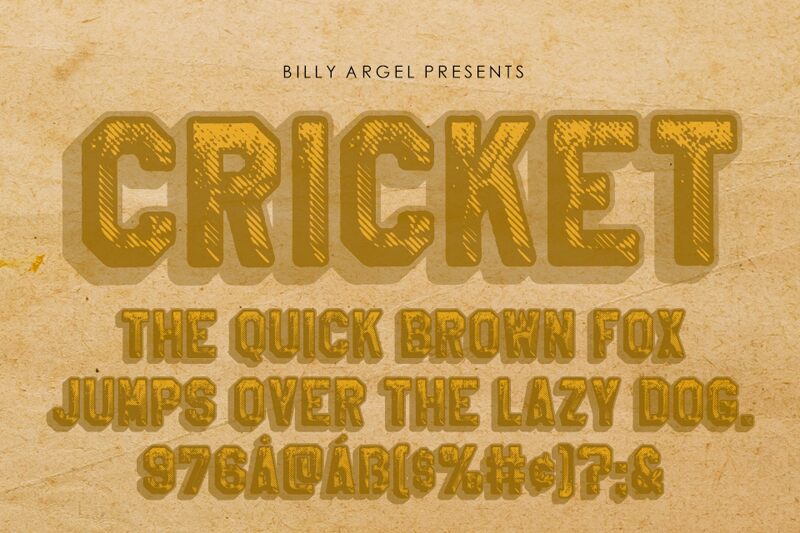
Are you looking for a bold and edgy display font that adds character to your designs? Look no further than CRICKET Bold! Designed by Billy Argel, this condensed eroded font is perfect for creating striking headlines, logos, and posters that demand attention. Its rough edges give it a vintage feel, making it suitable for projects such as retro-themed branding, music album covers or even sports-related designs. Whether you're designing flyers for an upcoming event or creating graphics for social media posts, CRICKET Bold is the perfect choice to make your message stand out from the crowd.
Six overlapping fonts.
CRICKET PERSONAL USE
CRICKET PERSONAL USE Bold